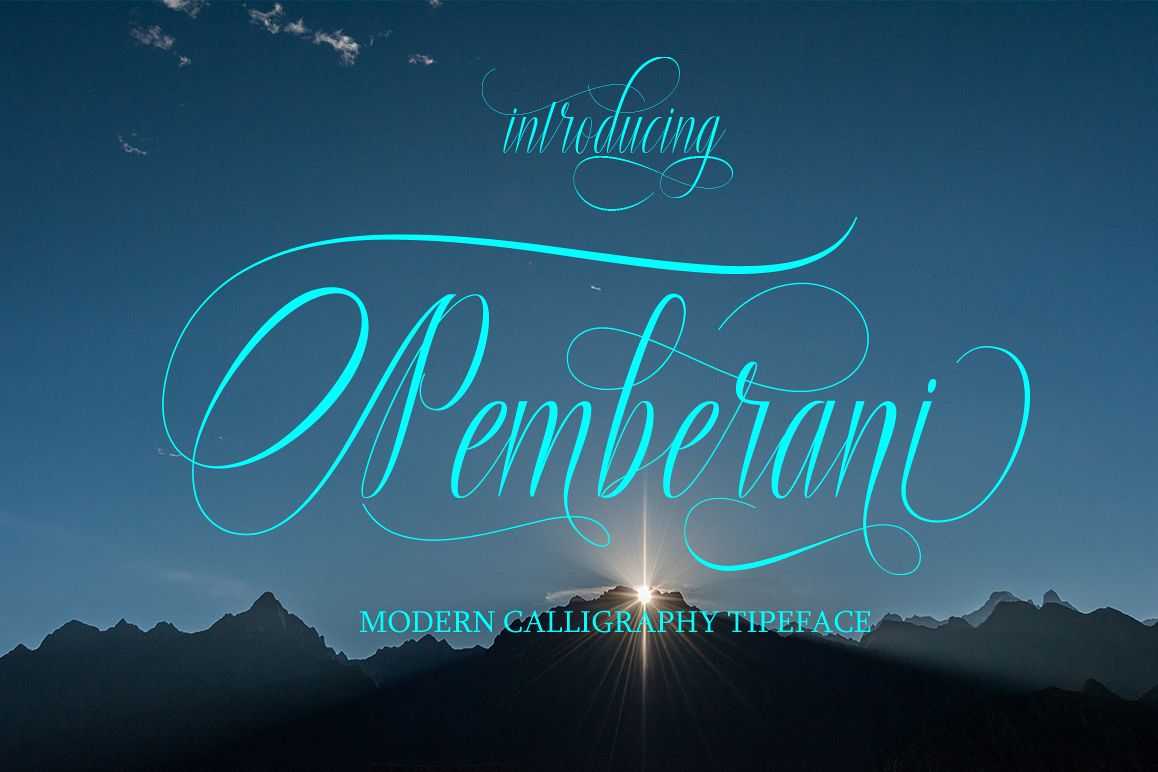
Pemberani
Pemberani Modern Calligraphy. This font was designed by handwriting, and it has a modern andunique forms of calligraphy, the writing style is very natural.
The Features of this fonts is;
* Standart ligatures
* Stylistic Alternates
* Contextual Alternates
* Stylistic sets